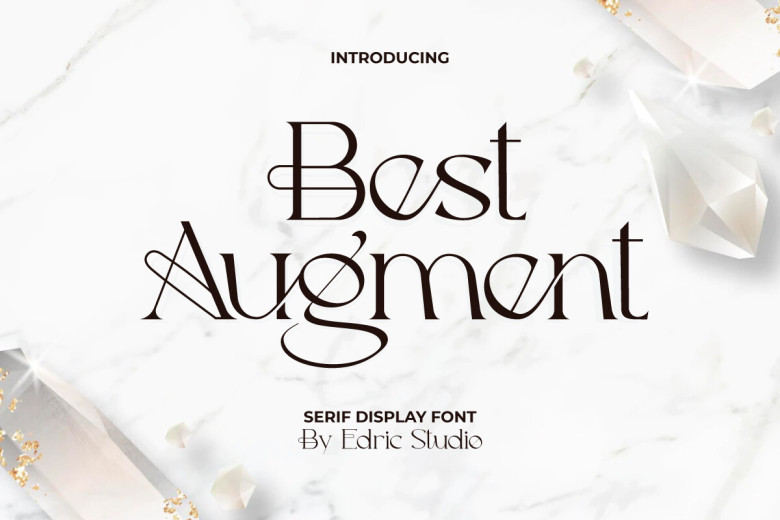
Best Augment Font
Best Augment Font is an exquisite serif display font. Thin and elegant, the font exudes luxury that is ideal for many sectors including cafes decor fashion, art nail salons as well as spa salons, restaurants, wedding planners, writers or any business that demands an elite appearance. It is an exquisite character set that is expertly managed with precise kerning and spacing arrangements that contribute to its elegance.
Best Augment Font will be an ideal solution for any task (with extended use), such as artwork frames, logos for brands and business cards, headers magazines catalogs mockup designs quotes stationery signage websites etc. Since it is PUA encoded you will easily have access to its incredible glyphs and symbols!
Best Augment Serif Font